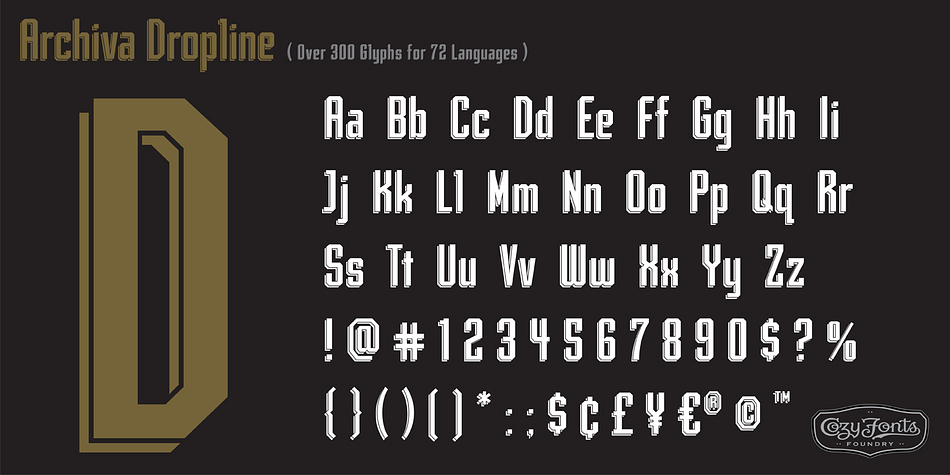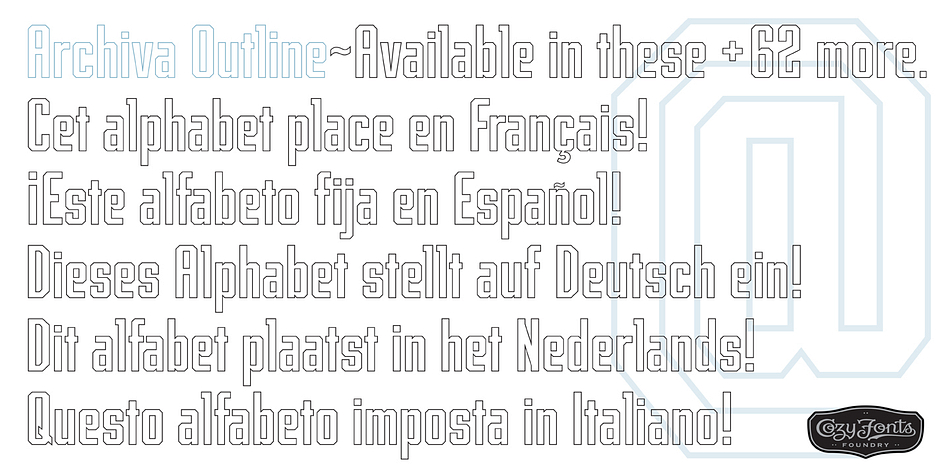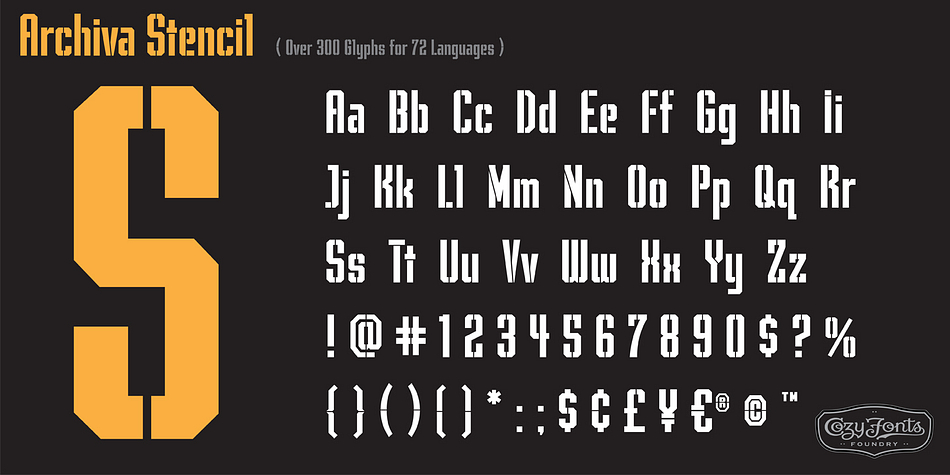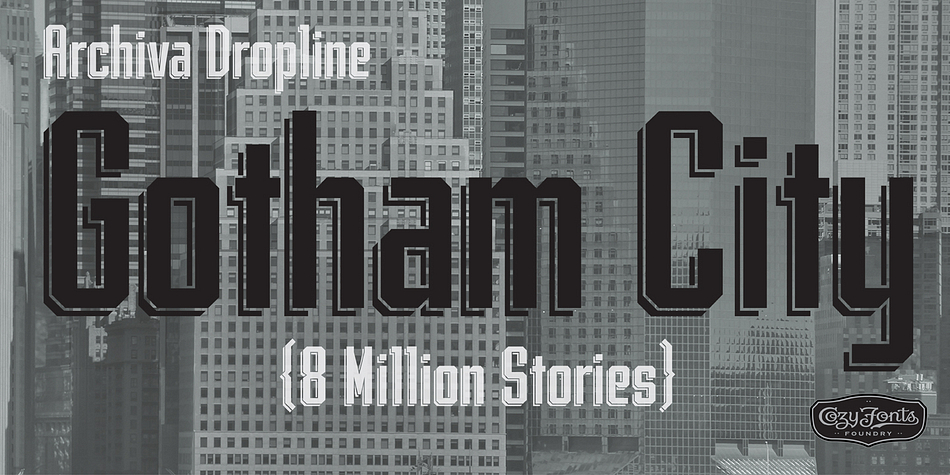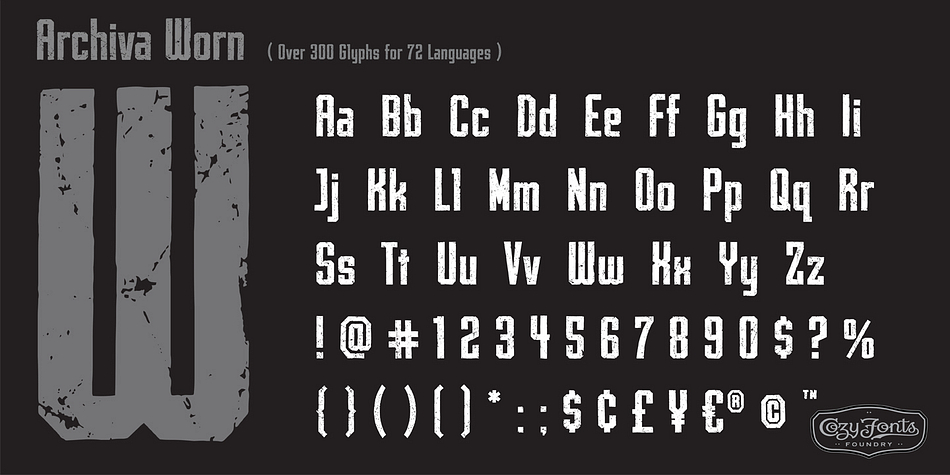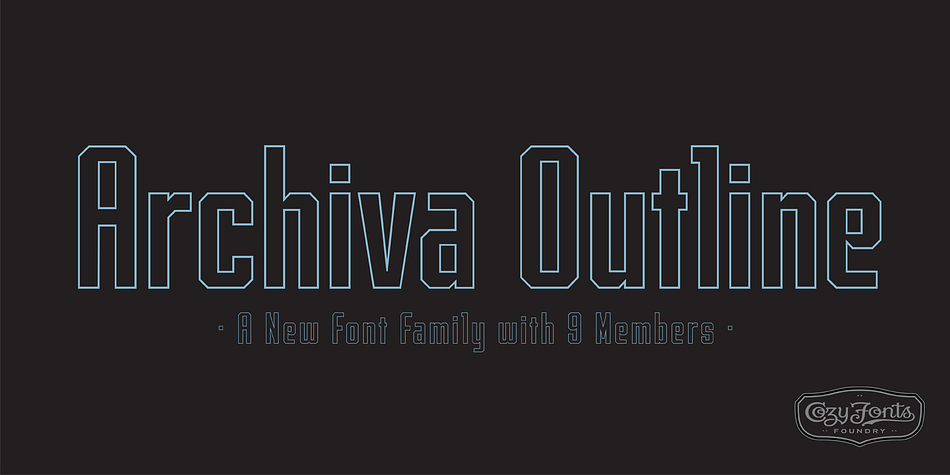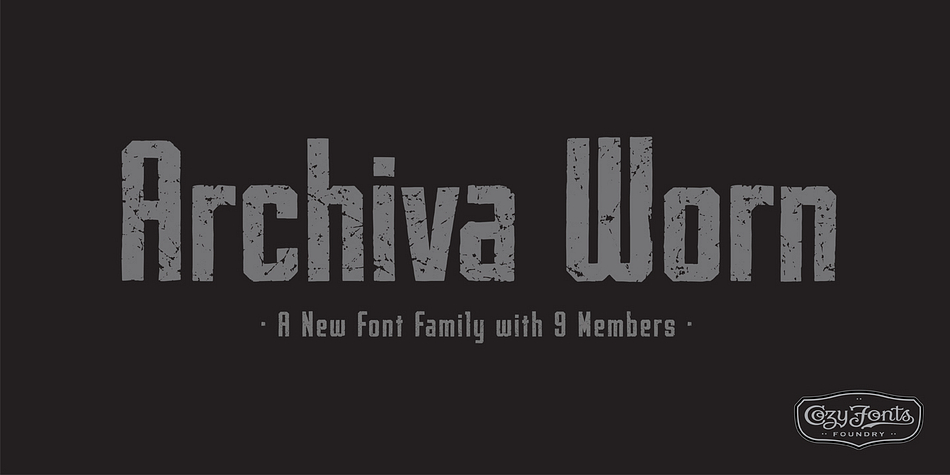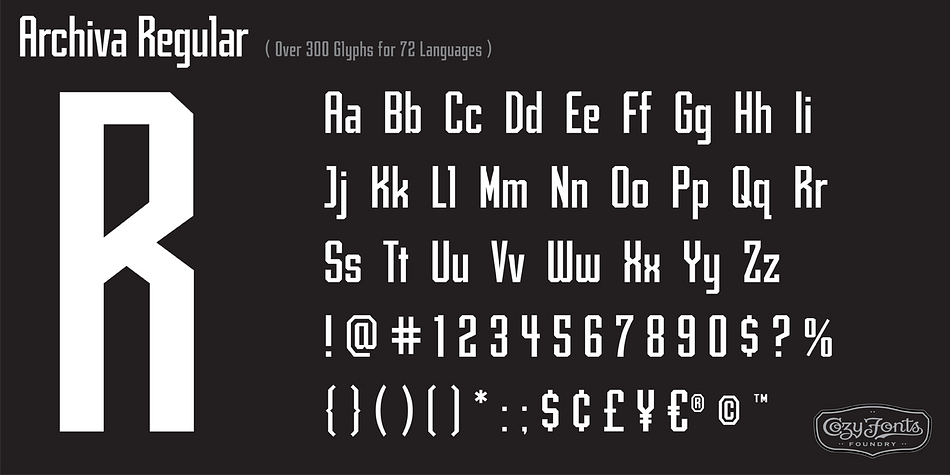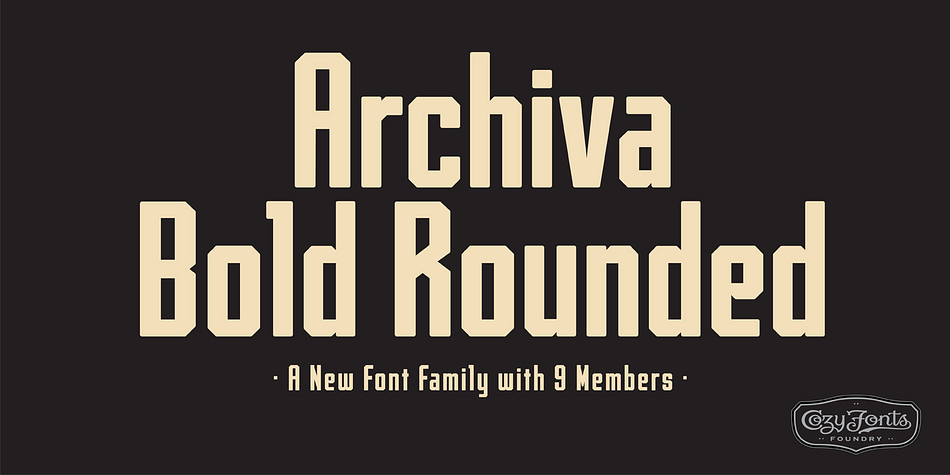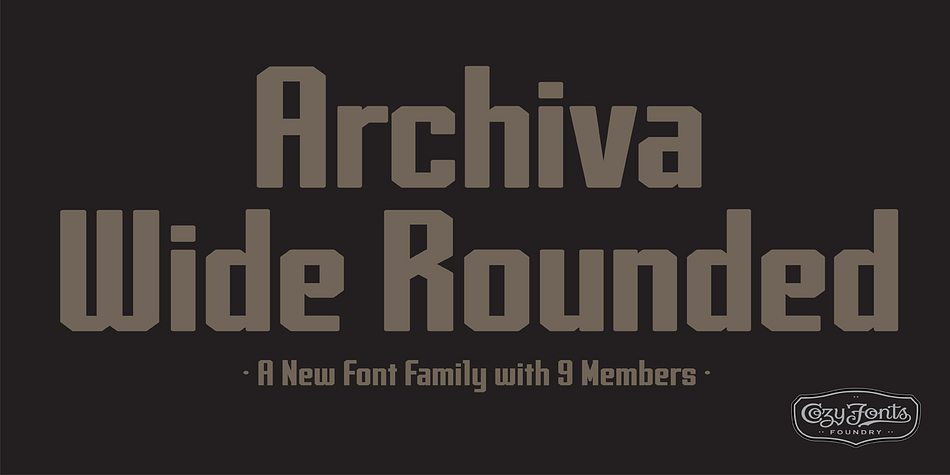
Designed by Tom Nikosey, Archiva is a multiple classification font family. This typeface has nine styles and was published by CozyFonts Foundry.
Archiva Regular - Archiva Italic - Archiva Bold - Archiva Bold Rounded - Archiva Wide Rounded - Archiva Dropline - Archiva Stencil - Archiva Worn - Archiva Outline is the eighth font family created by American Graphic Designer Tom Nikosey. Tom specializes in lettering, typographic design & illustration for branding and trademarks. New from CozyFonts Foundry.
Archiva was designed to maximize limited horizontal space reserved for text, type, or headlines, titles and label wording. The Archiva Family is perfect for Labels, headlines, ads and especially signage. The 9 members of the Archiva Font Family maintain a consistency and likeness to each other in form and dynamics but yet each member of the family has it’s own individual personality. Archiva derived from the word archival or place where records are kept. Archiva is the Greek word for Archive.
The x-height and organized glyph consistency enables the user to keep files organized and clean much like an archive. Caps and numbers work extremely well together also. There are over 300 glyphs contained in each of the 9 variations of Archiva© by CozyFonts and they work in over 70 Languages.